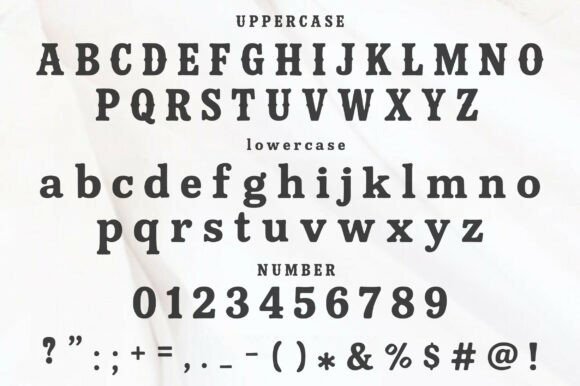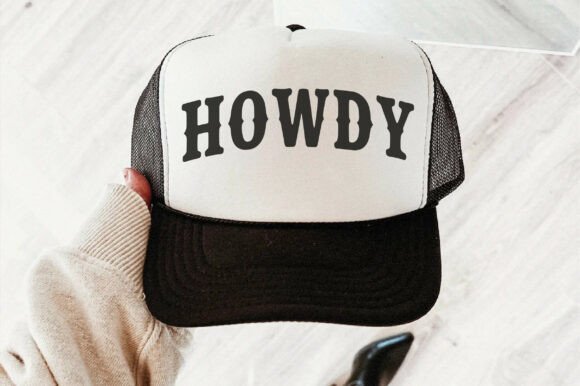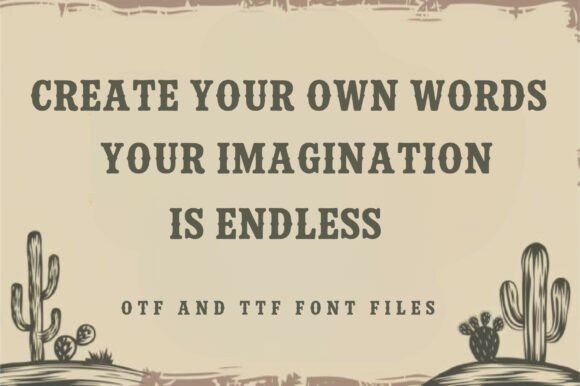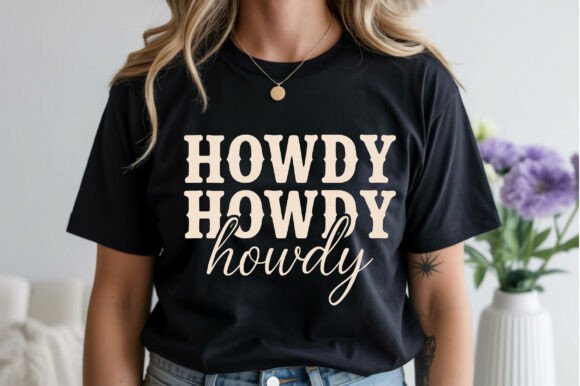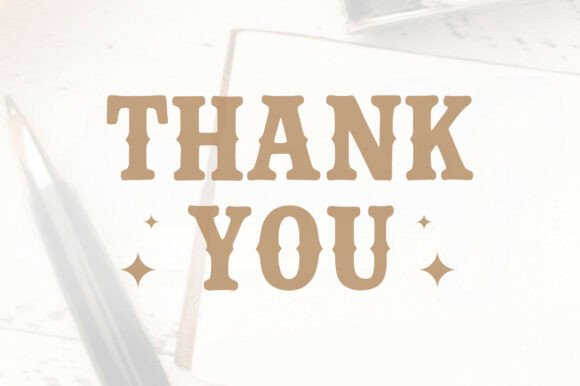
Introduction to Dusty Cactus Font Font
Fonts play a crucial role in design, and the Dusty Cactus Font font is a typeface that brings both character and versatility to any project. Whether you’re working on a branding project, a website, or a print design, the Dusty Cactus Font font offers a unique style that can elevate your work.
Dusty Cactus is a bold western-style display font that captures the rugged spirit of the wild frontier.
With its thick serif edges, vintage curves, and dusty charm, this typeface brings authentic cowboy energy to any design Perfect for western posters, rodeo titles, ranch branding, whiskey labels, vintage packaging, and adventure logos — Dusty Cactus adds a rustic, handcrafted touch that feels strong and timeless.
The Dusty Cactus Font font is more than just a typeface – it’s a design tool that helps you communicate your message with style and clarity. Its unique character set and versatile design make it suitable for a wide range of applications, from elegant invitations to bold headlines.
With its carefully crafted letterforms and balanced proportions, the Dusty Cactus Font font ensures readability and visual appeal across all mediums.
The Dusty Cactus Font font stands out with its unique design, exceptional readability, and versatility across various design applications.